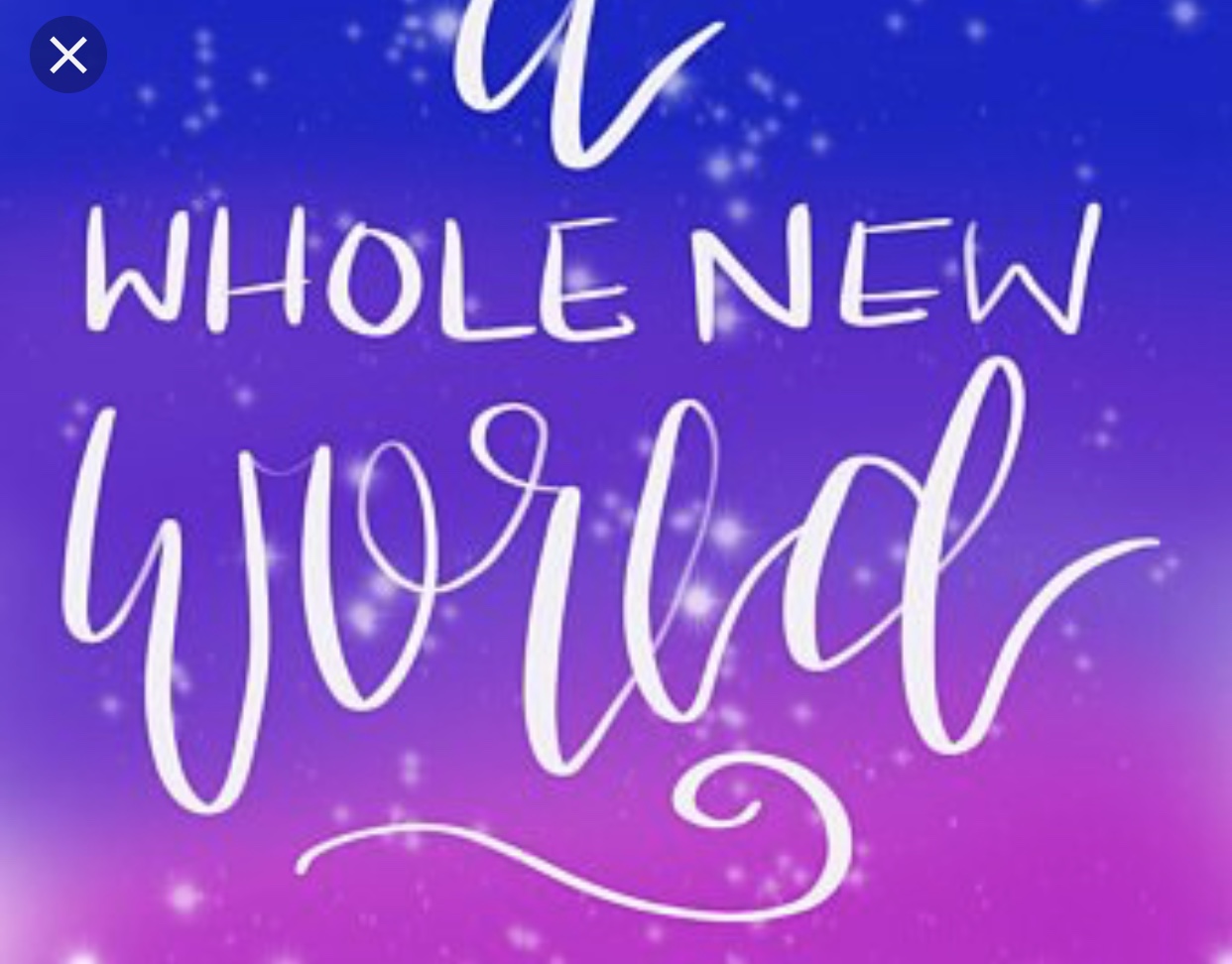
May be hand done. The W's and E's don't match. Looks like something those pallet wood people would do.
I think the EW in New look different because they are lower case. I call these Pinterest fonts because women see things in Pinterest and want us to make their sign with the same stupid fonts. I guess pallet wood people fall in the same category.
Good grief, WORLD is almost unreadable.
That's what they're learning in school these days. How to be unique and correct.... no matter what anybody else thinks. That whole thing is a joke. Sure hope it's nothing to do with someone's obituary or whatever............... :confused: